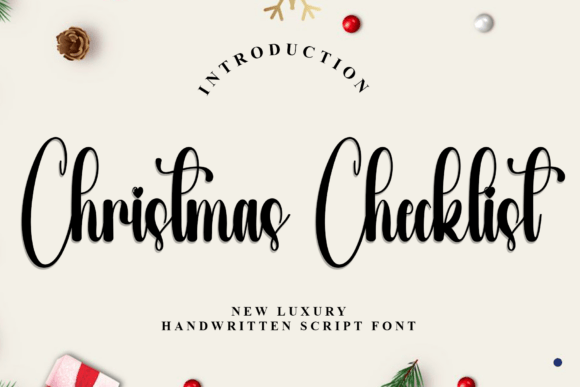
Deck the Halls with Typography: Discover the Magic of Christmas Checklist Font
As the snowflakes start to fall and the holiday lights twinkle, I find myself in a flurry of creative activity – designing festive greeting cards, crafting gift tags, and conjuring up merry holiday-themed projects. There’s something special about this time of year that sparks our imagination and inspires us to get crafty.
One of the secrets to making your designs truly shine is using the right typography. That’s where the Christmas Checklist Font comes in – a festive and merry typeface that captures the spirit of the holiday season. With its decorative elements and whimsical flair, this font adds a touch of enchantment to your words, making it perfect for designers who want to bring a little extra magic to their holiday projects.
Whether you’re a seasoned pro or just starting out, the Christmas Checklist Font is a valuable tool in your design arsenal. Its PUA encoding makes it easy to access all the amazing glyphs and ligatures, allowing you to let your typography shine with the magic of this beautiful font.
Key Features of Christmas Checklist Font
- Unique Characteristics: The Christmas Checklist Font features a distinctive, modern design with a playful twist, making it perfect for creating festive and fun checklists, to-do lists, and other holiday-themed content.
- Font Metrics: The font’s x-height, cap height, and baseline are carefully designed to ensure readability and consistency across different font sizes and styles.
Designer Review: Christmas Checklist Font
Overall, I’d say the Christmas Checklist Font is a fun and quirky addition to any holiday-themed project. ✨ Here are a few things that I think work really well:
- Unique and playful style that captures the spirit of Christmas
- Easy to read, even in smaller font sizes
- Includes a range of special characters and symbols that add to the festive feel
However, I do have a few concerns:
- ⚠️ Limited font weights and styles, which may limit its versatility
- ⚠️ Some of the characters and symbols feel a bit rough around the edges, which may not be suitable for high-end designs
- ⚠️ Not ideal for body text or long blocks of text, as it’s primarily designed for short phrases and titles
Overall, I think the Christmas Checklist Font is a great choice for projects that need a fun and festive touch. It’s perfect for social media graphics, party invitations, or other small-scale designs. Just be mindful of its limitations and use it in contexts where its unique style will shine.
Use the Christmas Checklist Font to create festive and fun designs for holiday-themed projects. You can also use it to create to-do lists and checklists for Christmas shopping and gift-giving.
The Christmas Checklist Font is perfect for:
- Christmas party invitations and decorations.
- Gift-giving checklists and wish lists.
- Holiday-themed social media graphics and ads.
- Christmas-themed printables and worksheets.